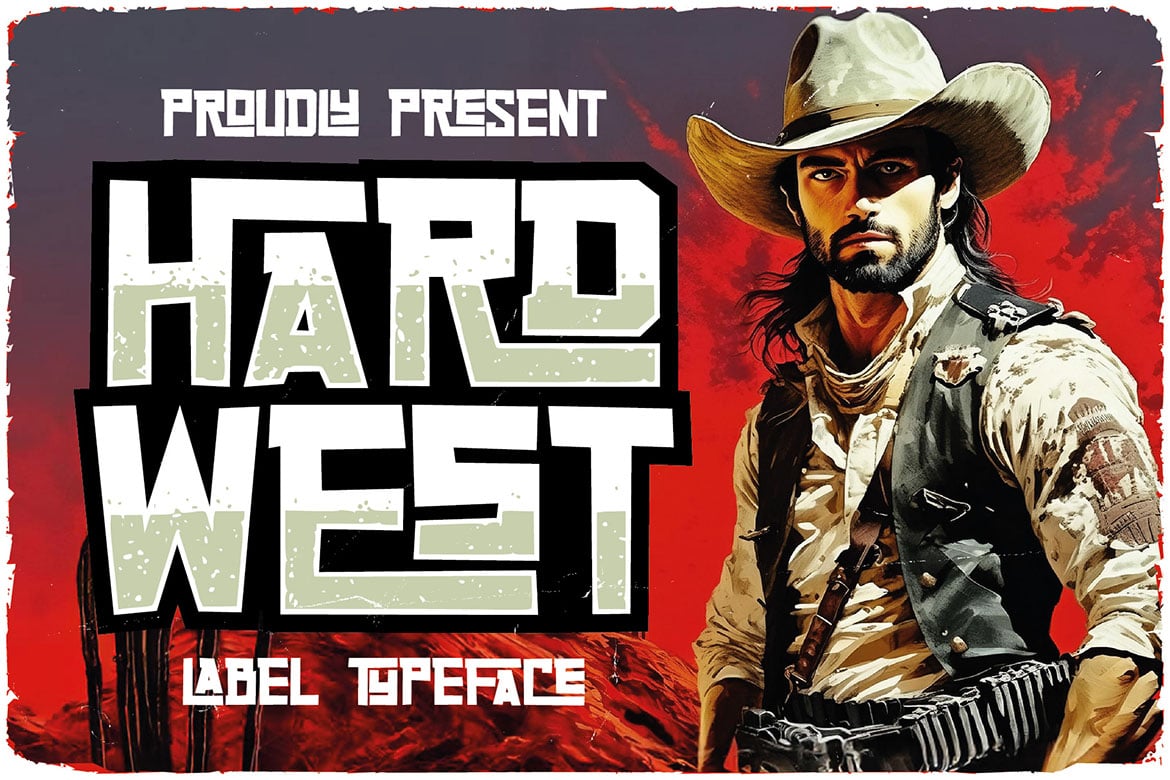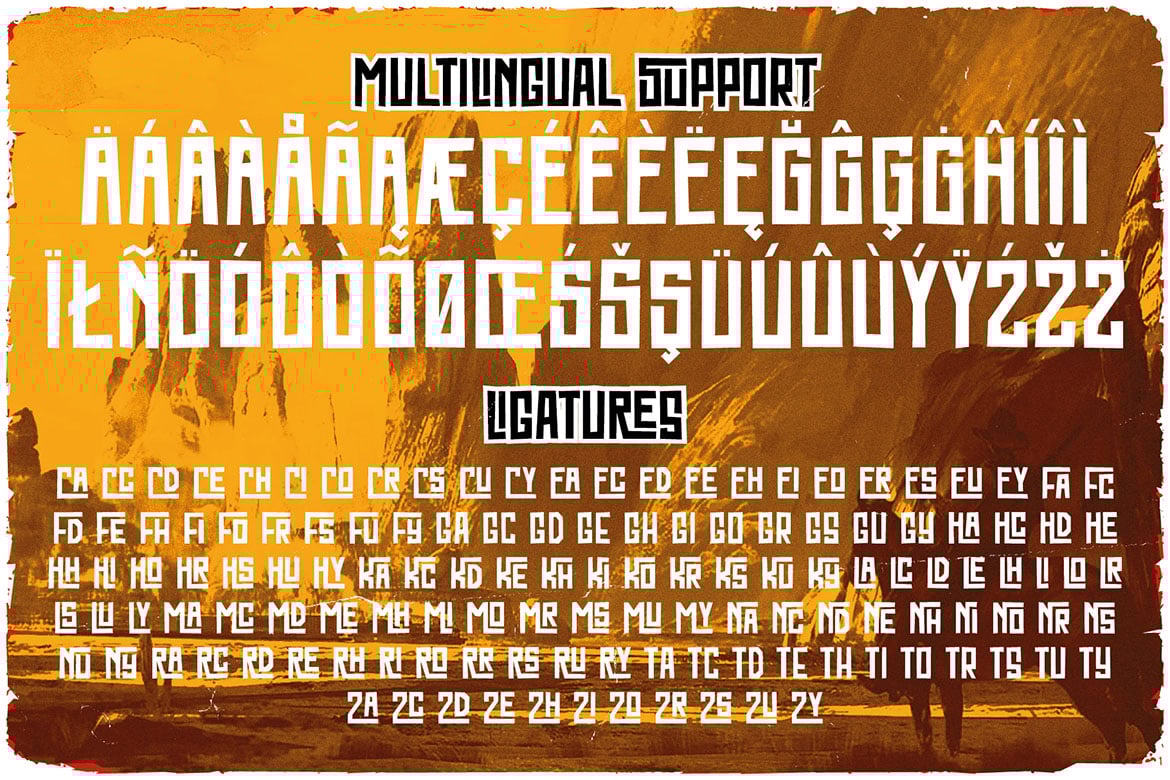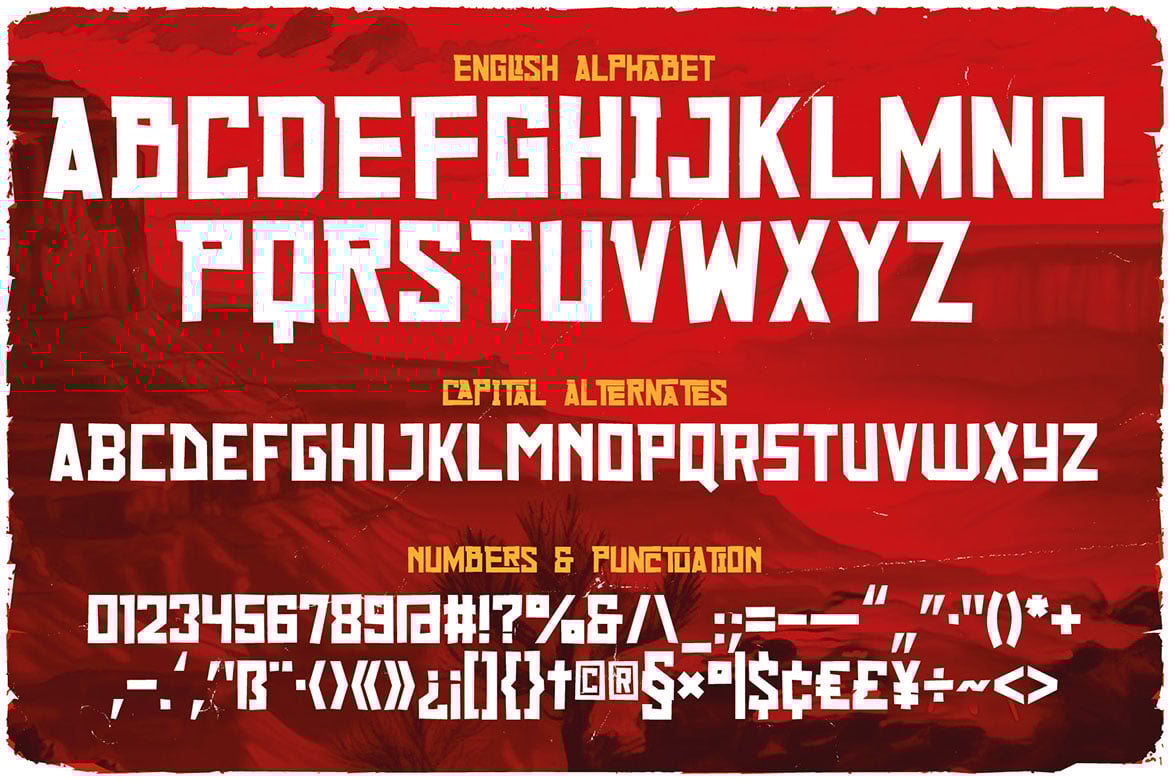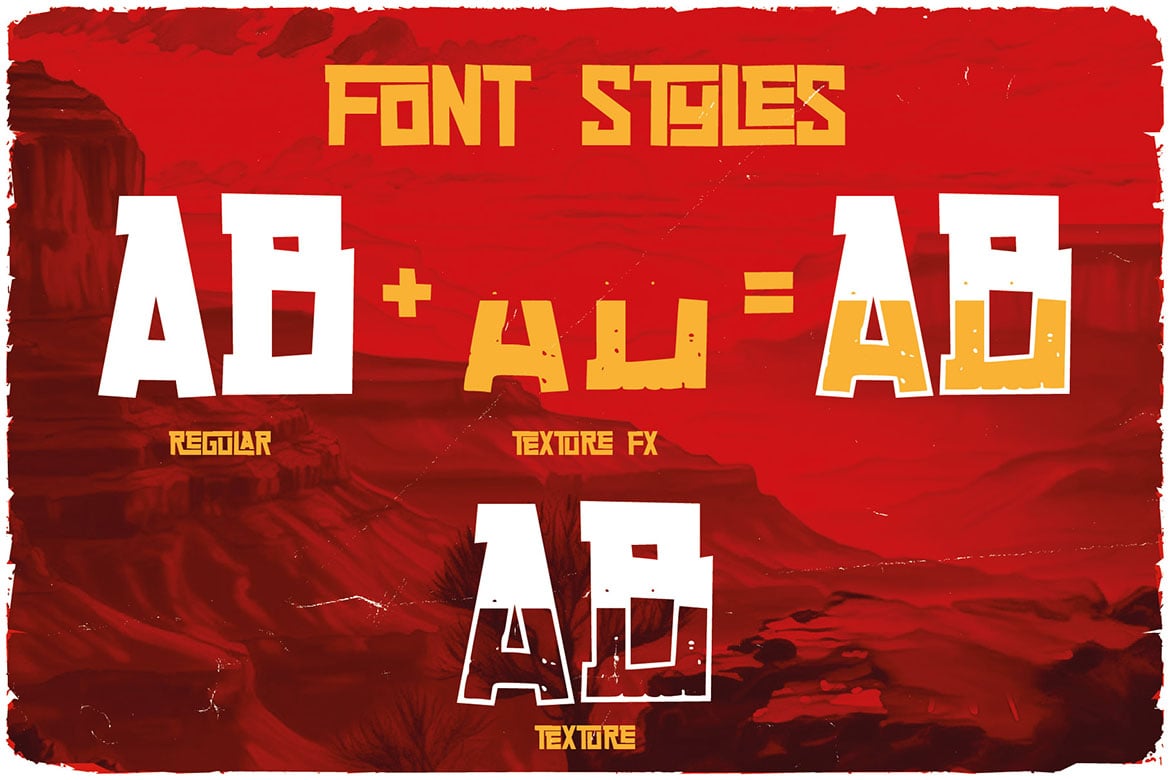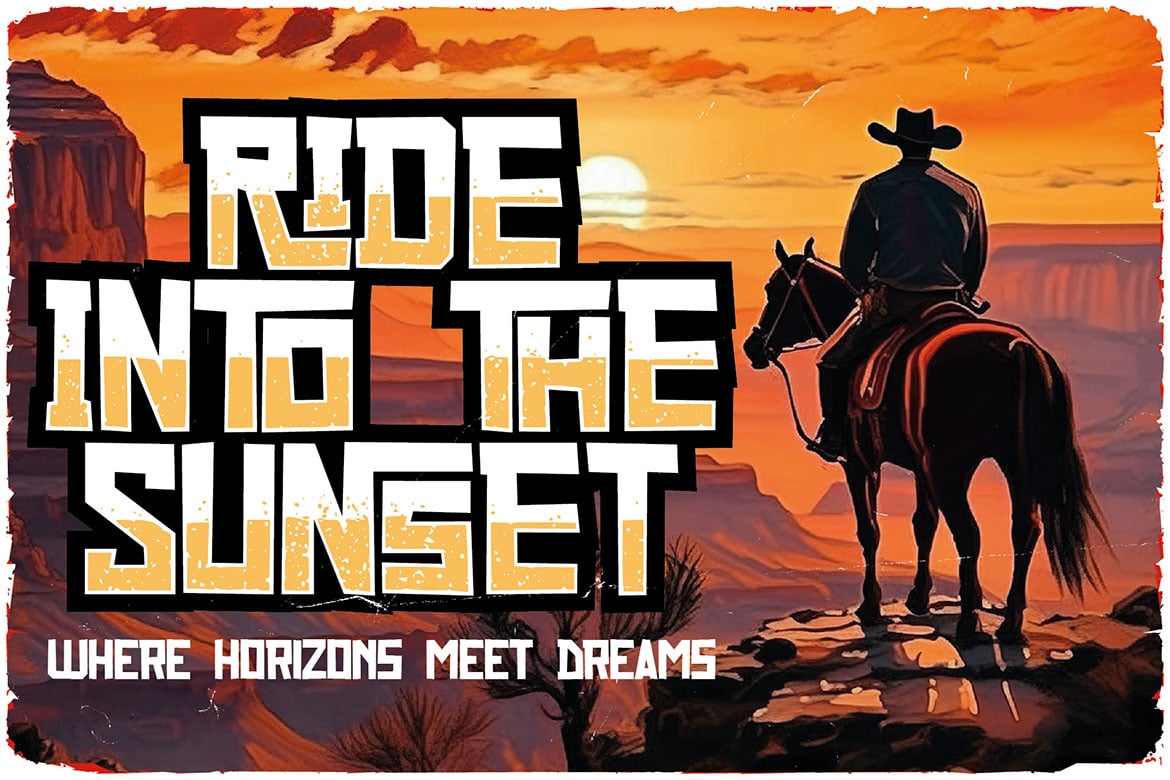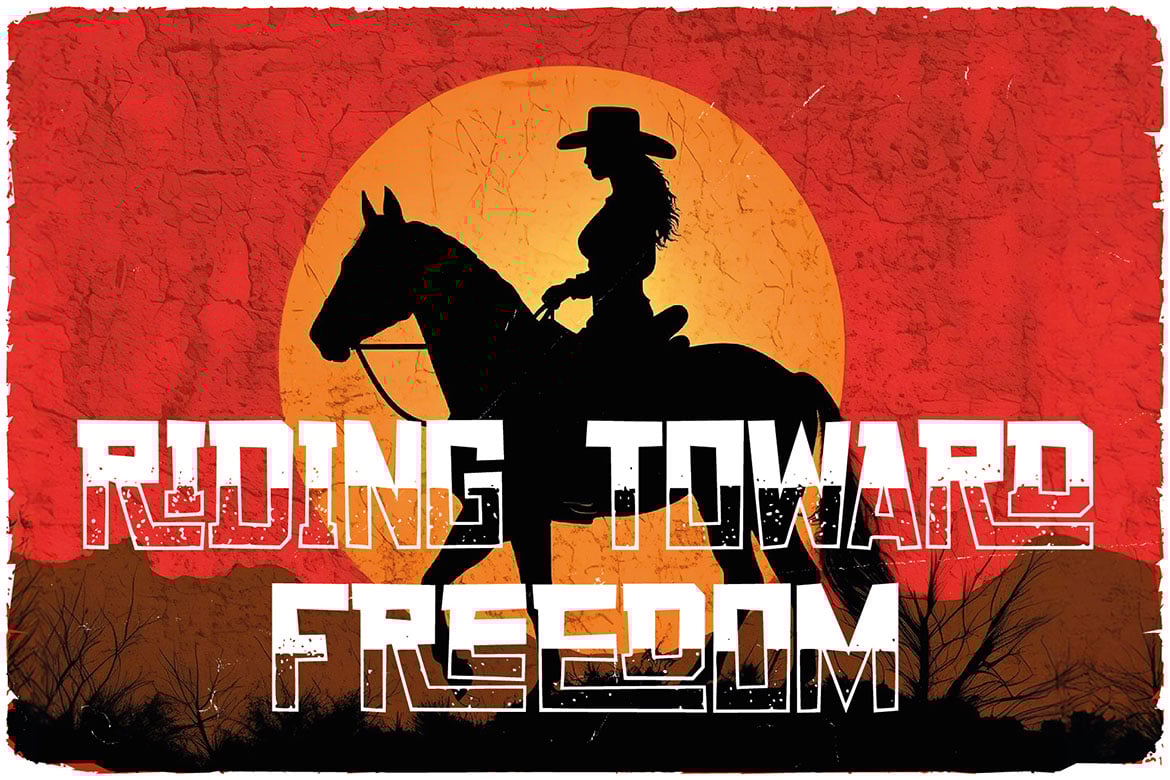
Hard West Layered Typeface
Unique, western, bold, retro, ligature, monogram & label sans serif font. Comes with multilingual support & a lot of ligatures + 3 font versions for layered effects – great for your new logo, monogram or branding project.
- 3 font versions – you can create layered texts
- Multilingual support & a lot of ligatures
- Great for your new logo, monogram or branding project